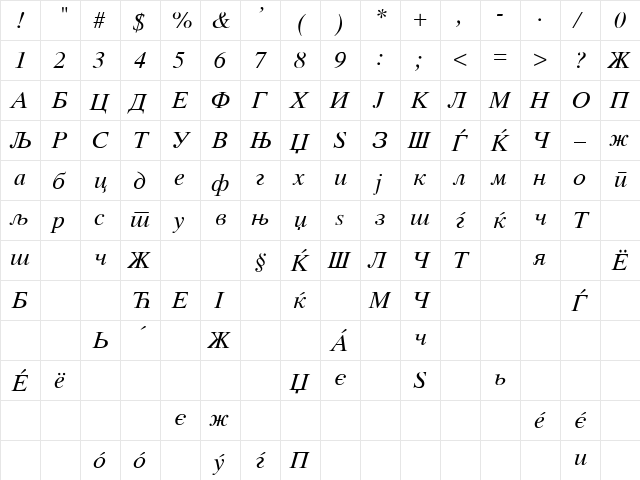
MakCirT Italic
Design Context for MakCirT Typeface
MakCirT is a composed and adaptable typeface that performs quietly and consistently across a wide range of design contexts. The slanted form adds forward momentum and visual energy.